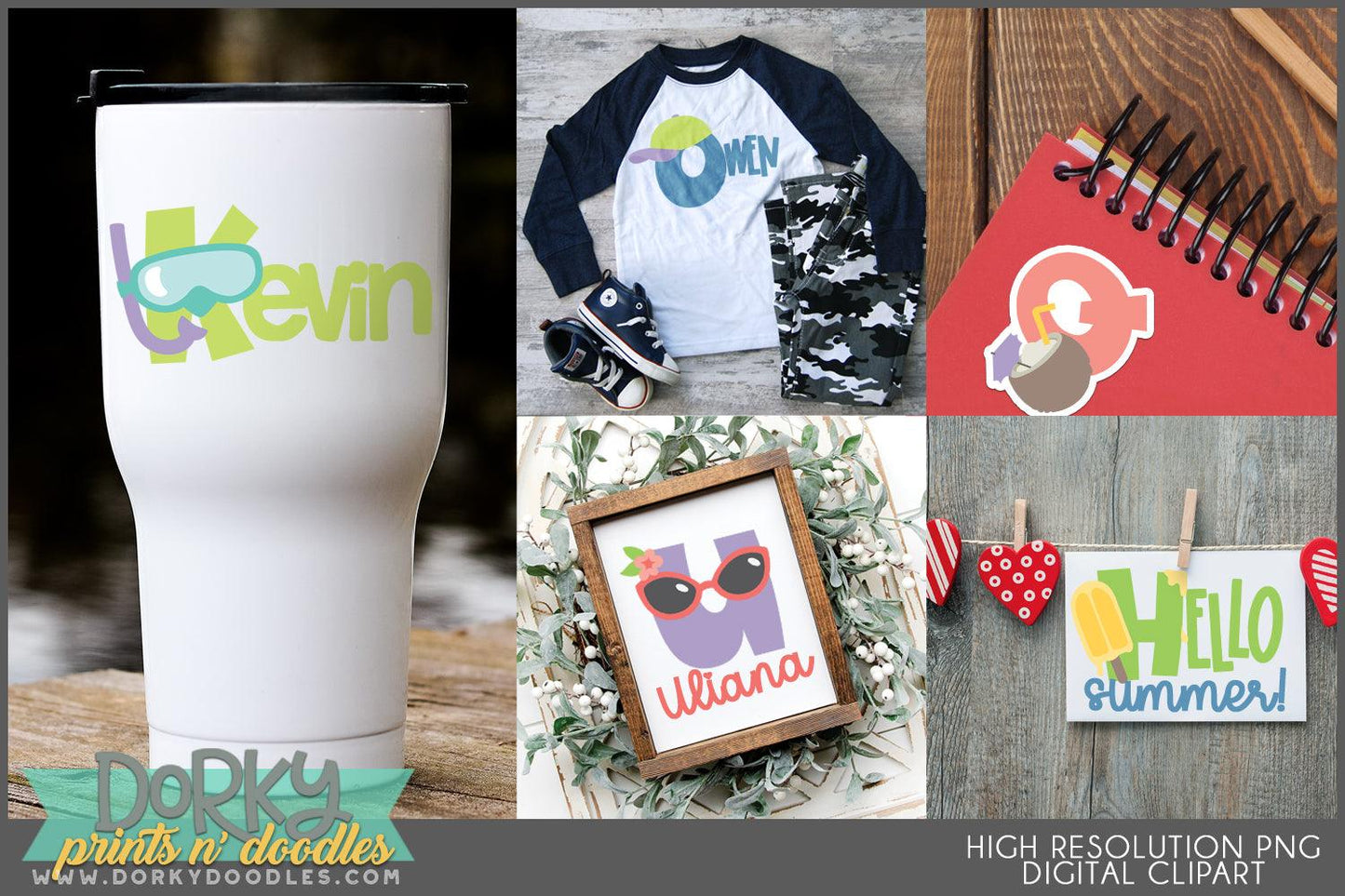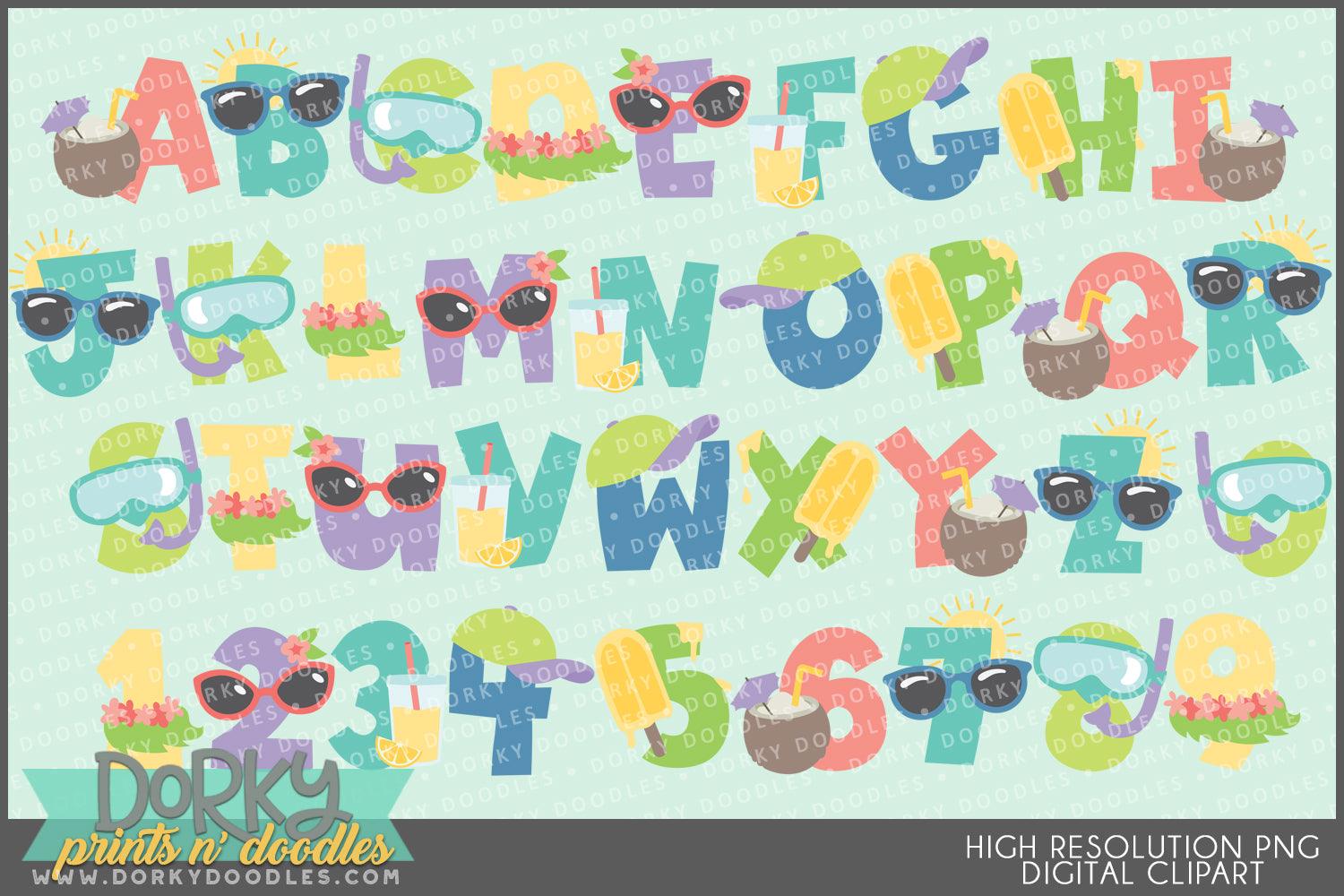
Chunky Summer Alphabet Clipart
These cute and chunky summer alphabet clipart images look fabulous on cards, in scrapbooks, party invitations, planner stickers, sublimation projects, and decor! You will get 36 Digital Clip Art images in high resolution PNG format (they come as a ZIP file that you can download instantly once payment has cleared).
• the full alphabet and numbers 0-9 using sunglasses, snorkels, popsicles, drinks, and hula skirts.